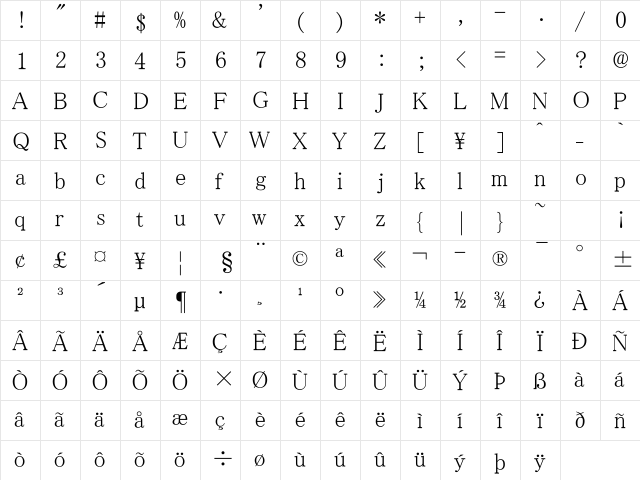
MS PMincho Regular Font Preview
MS PMincho Regular
Design Context for MS PMincho Typeface
MS PMincho takes a measured approach to typography — its balanced proportions and neutral character make it a reliable workhorse for both digital and print work.